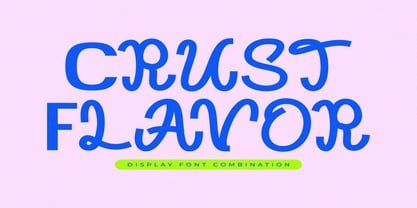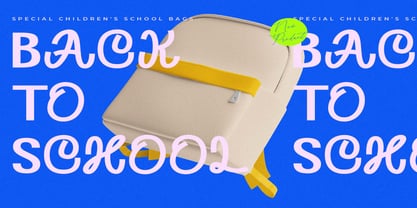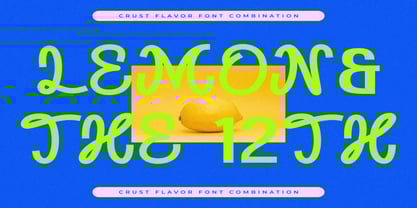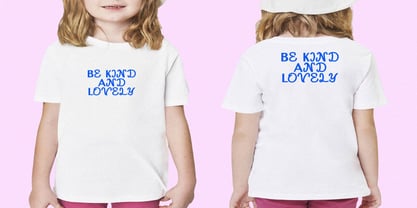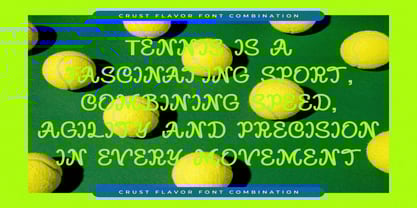
Crust Flavor
by Letterena Studios
The Crust Flavor Font Family was designed by Heru Utama Putra and published by Letterena Studios. Crust Flavor contains 1 styles.
Crust Flavor a modern and classic serif typeface that has a modern and unique look. This typeface is perfect for an elegant & luxurious logo, book or movie title design, fashion brand, magazine, clothes, lettering, quotes, and so much more